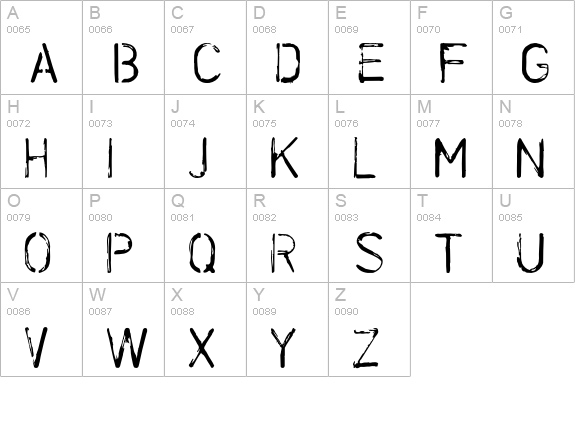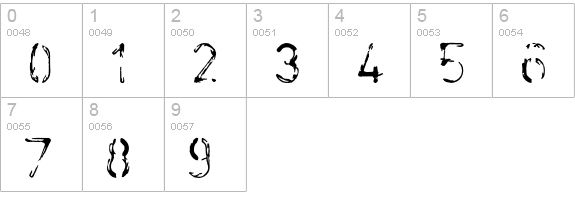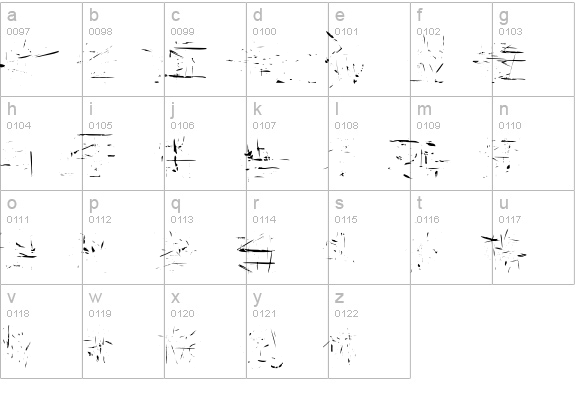
AlliedEngineGreased Font Details
AlliedEngineGreased font is a bold and rugged typeface that exudes strength and reliability. Its sturdy and industrial design makes it perfect for projects that require a touch of toughness and resilience. The thick strokes and angular edges give this font a commanding presence, making it ideal for headlines, logos, and branding materials. What sets AlliedEngineGreased font apart is its unique greased texture, adding a gritty and edgy feel to any design. This font is versatile and can be used for a wide range of applications, from posters and banners to packaging and merchandise. Best of all, AlliedEngineGreased font is available for free download at FontsMarket.com. So go ahead and add this powerful and dynamic font to your collection today!